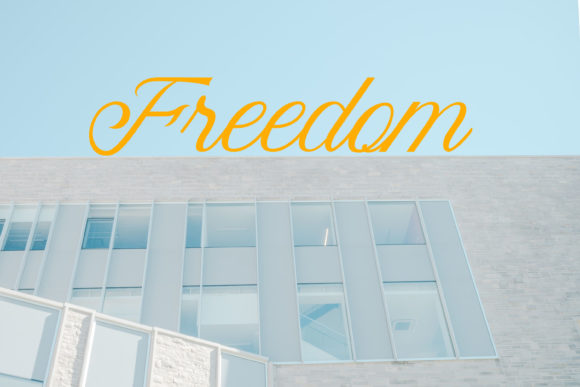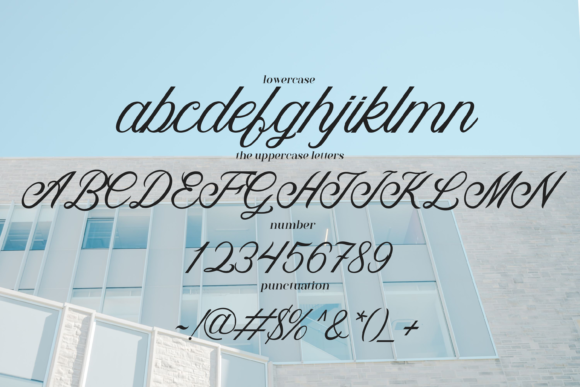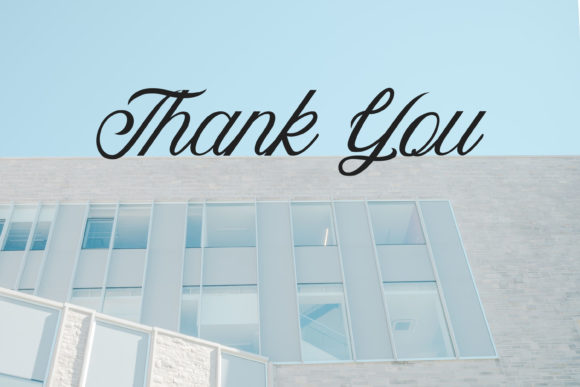
Symphony Font
About Symphony Font
**Symphony** presents itself as a sweet, chic, and romantic handwritten font, ready to infuse your favorite creations with an irresistible charm. This font is designed to breathe life into your projects effortlessly, adding a touch of sweetness, chic elegance, and a romantic flair.
The sweetness of Symphony is evident in its gentle and flowing characters. Each letter is crafted with a tender touch, creating a soft and inviting script that resonates with charm. This font becomes a delightful addition to projects that aim to convey a sense of warmth and friendliness.
Chic elegance is a defining feature of Symphony, contributing to its sophisticated aesthetic. The font’s stylish and well-crafted design ensures that it seamlessly integrates into projects with a desire for a modern and refined look. Whether applied to branding, invitations, or any design endeavor, Symphony adds a touch of chic elegance.
With its romantic handwritten nature, Symphony becomes a perfect choice for projects that celebrate love and emotion. From wedding materials to romantic quotes, the font enhances the content with a romantic flair that feels genuine and heartfelt. Its ability to evoke emotions makes it a valuable asset for designs that aim to create connections.
Adding Symphony to your favorite creations is akin to letting them come to life effortlessly. The font’s combination of sweetness, chic elegance, and romantic charm brings a dynamic quality to your designs. Whether used for logos, branding materials, social media posts, or any creative endeavor, Symphony stands ready to elevate your projects with its irresistible and lively character.
In essence, Symphony transcends being just a font; it becomes a design companion that effortlessly combines sweetness, chic elegance, and a romantic touch. Embrace the enchantment that comes with incorporating Symphony into your favorite creations, and witness how it brings them to life with its captivating and lively presence.